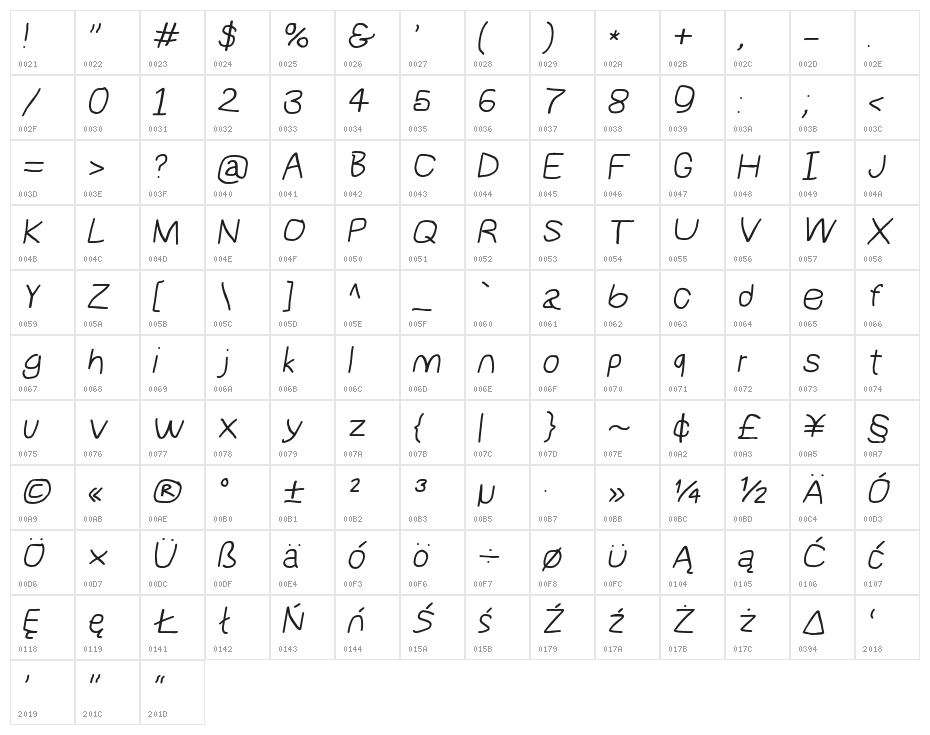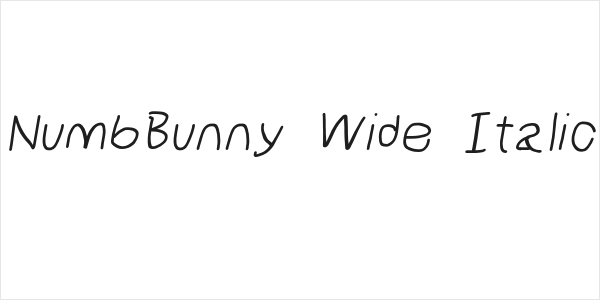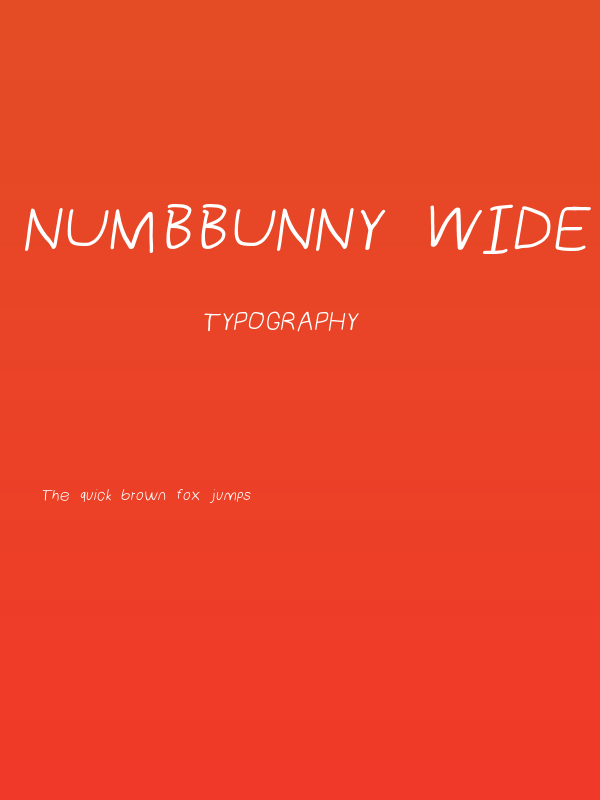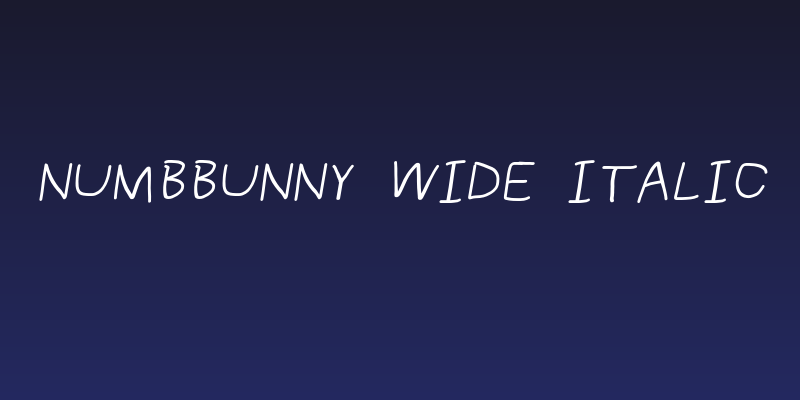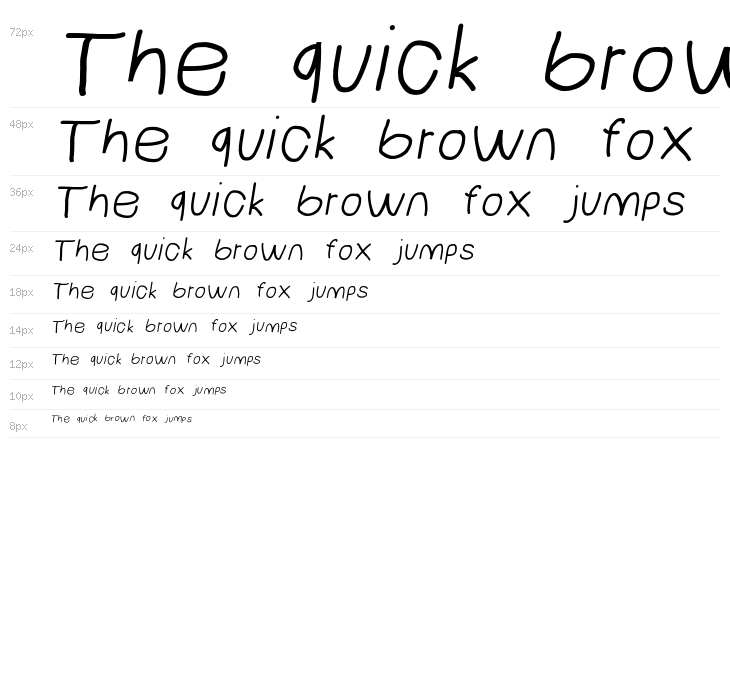
NumbBunny Wide Italic Font
NumbBunny Wide Italic Description
This font features a playful and casual handwritten style with a wide stance and italic slant. The characters are slightly uneven, adding a whimsical and informal touch. Uppercase letters are bold and distinct, while lowercase letters maintain a consistent flow. Numbers are clear and legible, with a unique flair that matches the overall style. The special characters are creatively designed, enhancing the font's quirky personality. This font's wide and italic nature makes it stand out, perfect for projects that require a fun and approachable aesthetic.
| Proposed Projects | Ideal for children's books, casual invitations, playful branding, and creative posters. |